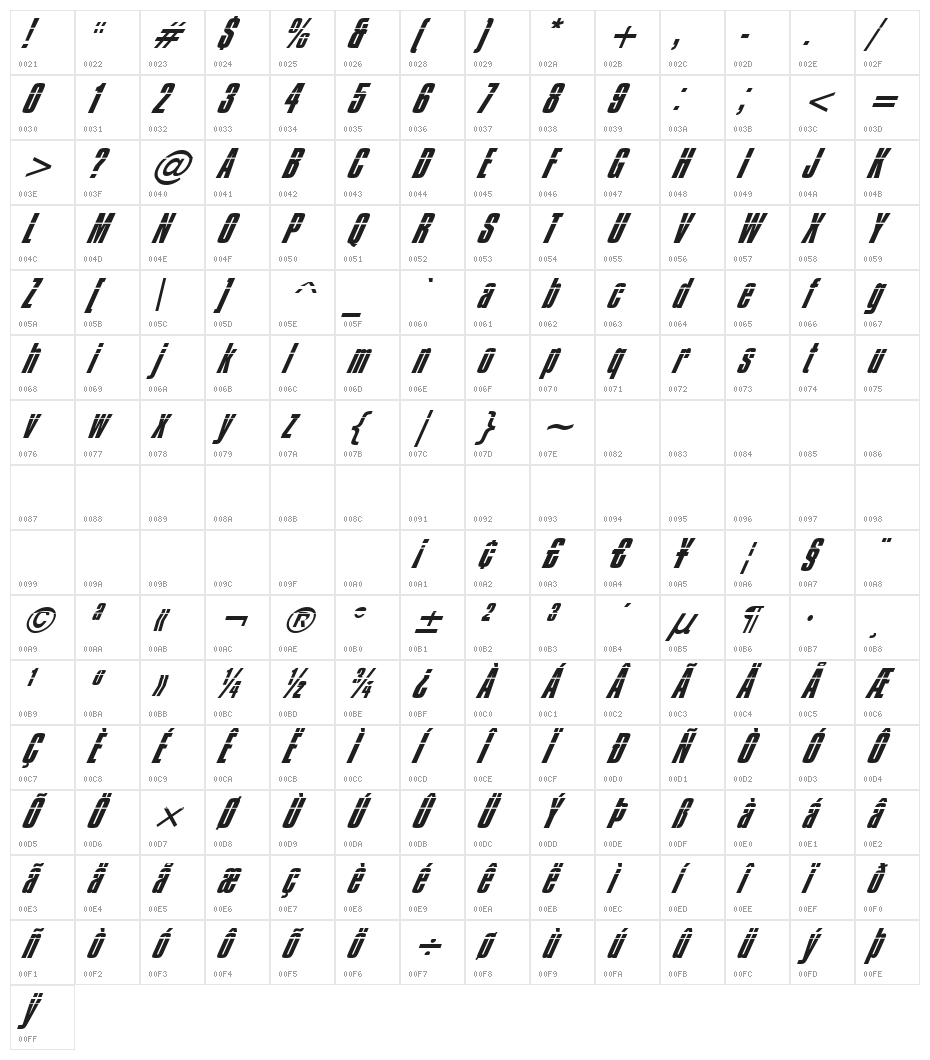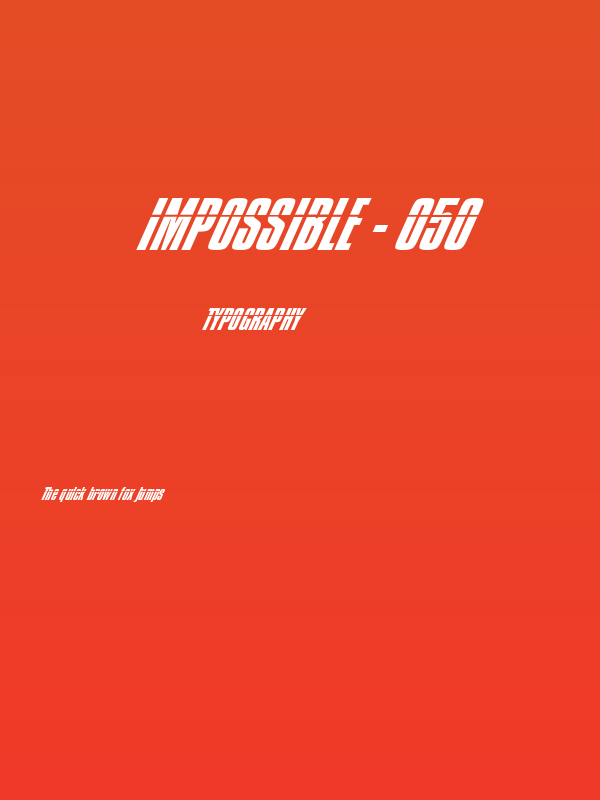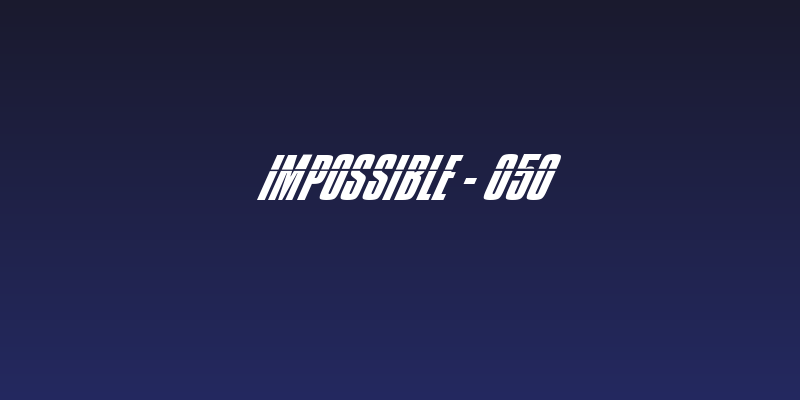
Impossible - 050 Font
Impossible - 050 Description
This font features a bold and dynamic style with a strong slant, giving it a sense of motion and urgency. The characters are tightly spaced, enhancing its compact and impactful appearance. The uppercase and lowercase letters maintain a consistent weight, contributing to its bold presence. The numbers and special characters follow the same slanted and bold design, ensuring uniformity across all glyphs. This font's high contrast in stroke thickness adds to its striking visual appeal, making it suitable for attention-grabbing designs.
Proposed ProjectsThis font is perfect for sports branding, action movie posters, dynamic advertisements, and any project requiring a bold, energetic typeface.